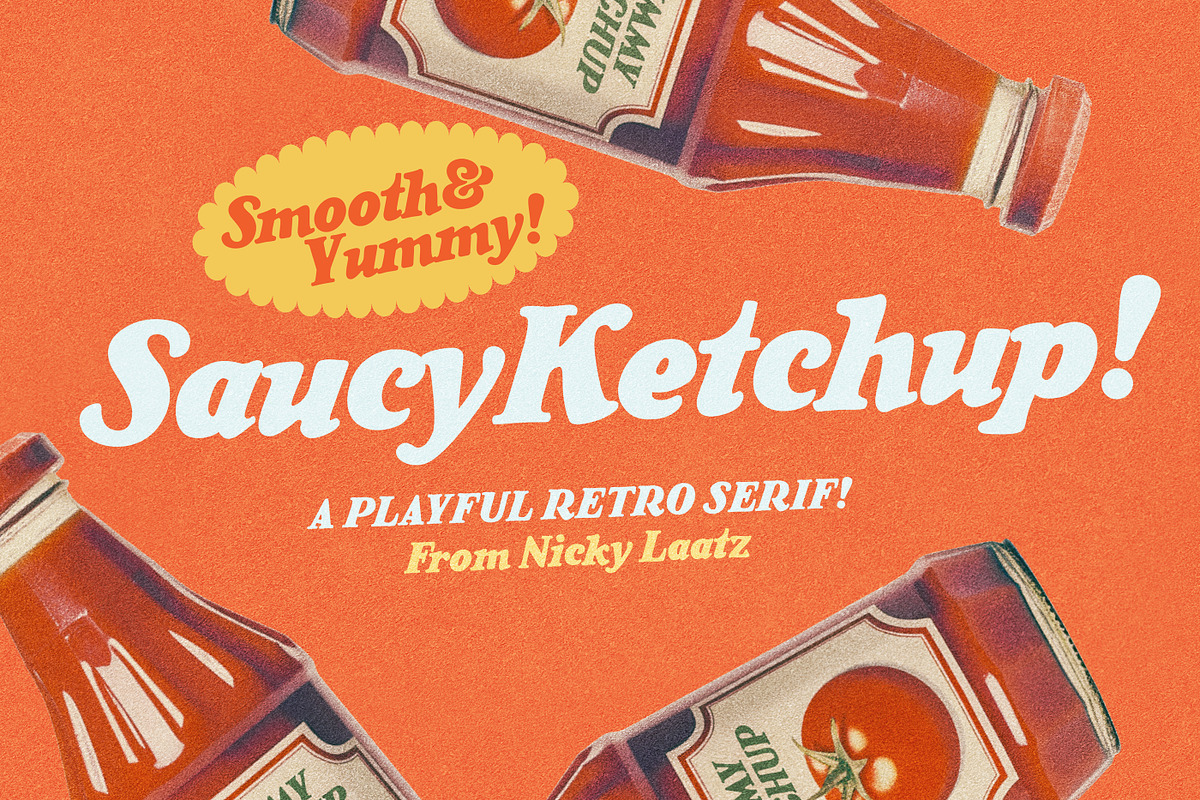
Step into the golden era of American diner culture with Saucy Ketchup—a bold, lively retro serif font that captures the unapologetic charm of 1940s and 1950s hand-painted signage. This isn’t just a font—it’s a sensory experience. Every curve, every stroke pulses with energy, designed to grab attention, spark joy, and bring a splash of vintage flair to your creative projects.
Channel the Spirit of Classic Diner Advertising
Saucy Ketchup draws direct inspiration from the eye-catching, hand-painted signs that once lined the highways and storefronts of mid-century America. Its bold weight, exaggerated serifs, and animated letterforms evoke the nostalgic feel of grease traps, jukeboxes, and soda fountains. Whether you’re designing a restaurant menu, crafting a retro event poster, or building a brand identity with a playful twist, Saucy Ketchup delivers authenticity with a modern edge.
Bold Personality, Playful Details
What makes Saucy Ketchup truly stand out isn’t just its visual impact—it’s the attitude packed into each character. The letters feature:
- Playful, exaggerated curves that feel hand-drawn and full of motion.
- Zesty, dynamic edges that add excitement and depth to the typography.
- Expressive weight variation that emphasizes rhythm and readability.
- A complementary condensed version for tight layouts and space-saving designs without losing its signature punch.
This dual-style format gives you flexibility—go wide for impact, go narrow for precision—without sacrificing character.
Perfect for Branding, Menus, and Eye-Catching Campaigns
Use Saucy Ketchup to elevate any project that thrives on personality:
- Restaurants or food trucks looking to stand out with bold, appetizing branding.
- Brands wanting to inject fun and authenticity into packaging, labels, or product names.
- Event organizers planning retro-themed parties, festivals, or music venues.
- Artists and illustrators building vintage-style posters or album covers.
With its vibrant energy, it instantly communicates fun, confidence, and nostalgia—making your message unforgettable.
With Saucy Ketchup, you’re not just choosing a font—you’re choosing a voice. A bold, cheeky, unforgettable voice that says, “We’re here. We’re fun. And we’re ready to be noticed.”
Turn heads. Add flavor. Sizzle with Saucy Ketchup.